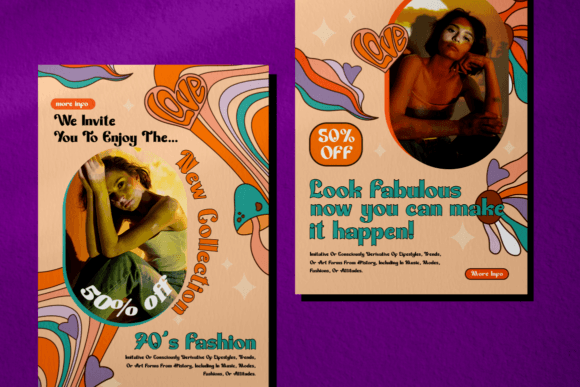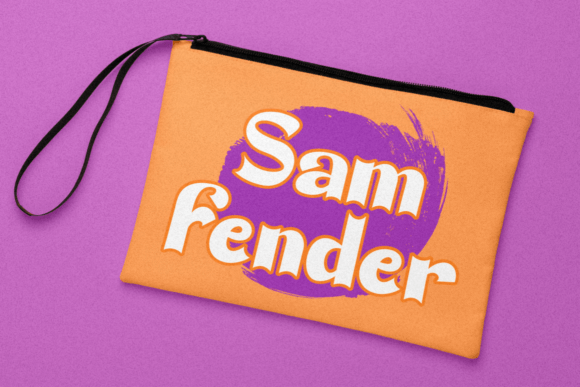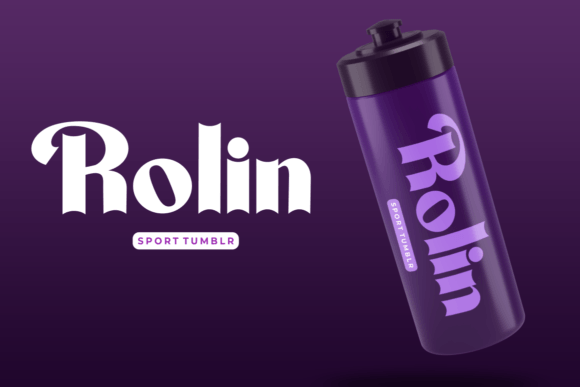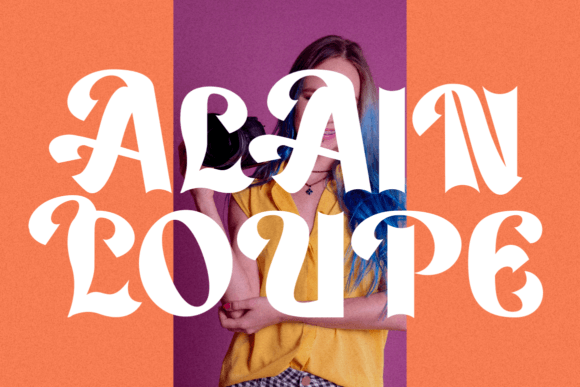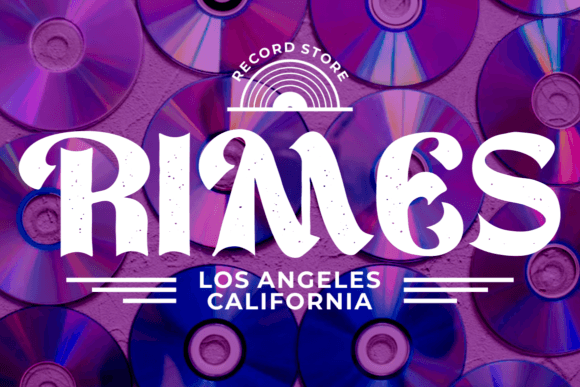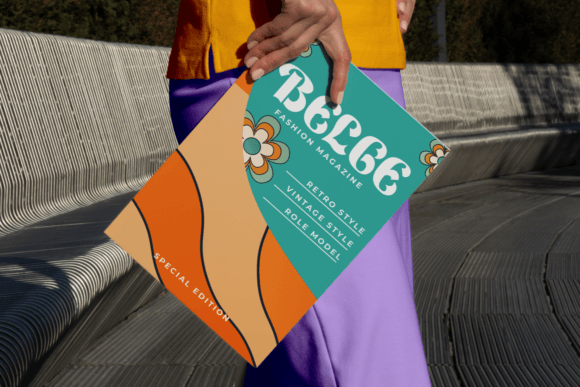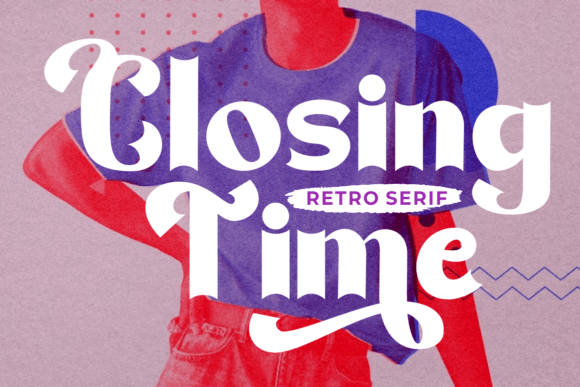
Discover the Timeless Charm of Closing Time Font: A Retro Display Font
Are you a designer or crafter looking for a font that can transport your designs to a bygone era? Look no further than Closing Time – Display Retro Font. This font is a perfect blend of retro and classic aesthetics, with its distinctive features and timeless appeal. In this article, we’ll explore the world of Closing Time Font and discover how it can elevate your designs to new heights.
The Essence of Retro and Classic Design
Closing Time – Display Retro Font takes you on a nostalgic journey to the charming days of classic design. With its slightly curved edges inward, this font boasts a perfect blend of retro and classic elements. The result is a unique and captivating aesthetic that’s sure to grab attention. Whether you’re designing a logo, invitation, or packaging, Closing Time Font is the ideal choice for adding a touch of nostalgia and timeless charm to your work.
Two Distinct Versions for Endless Possibilities
One of the standout features of Closing Time – Display Retro Font is that it offers two distinct versions: a clean variant for a polished look and a textured one for added character. The clean version is perfect for designs that require a crisp and modern aesthetic, while the textured version adds a touch of grit and authenticity. With these two options, you can experiment with different looks and find the one that best suits your design needs.
Add a Touch of Uniqueness with Alternative Characters
Closing Time – Display Retro Font also provides alternative characters to infuse a touch of uniqueness and creativity into your designs. These alternative characters allow you to experiment with different styles and add a personal touch to your work. Whether you’re designing a title, poster, or greeting card, the alternative characters in Closing Time Font give you the freedom to create something truly special.
So, what can you create with Closing Time – Display Retro Font? The possibilities are endless! This font is perfect for logos, invitations, packaging, posters, titles, businesses, greeting cards, magazines, and any design projects that seek to capture the essence of retro and classic themes. With Closing Time Font, you can add a touch of nostalgia and sophistication to your designs, making them stand out from the crowd.
Why Choose Closing Time Font?
So, why should you choose Closing Time – Display Retro Font for your design projects? Here are just a few reasons:
- Timeless appeal: Closing Time Font has a timeless charm that’s sure to captivate your audience.
- Retro and classic aesthetic: This font boasts a perfect blend of retro and classic elements, making it perfect for designs that require a nostalgic touch.
- Two distinct versions: With a clean and textured version, you can experiment with different looks and find the one that best suits your design needs.
- Alternative characters: The alternative characters in Closing Time Font give you the freedom to create unique and captivating designs.
- PUA encoded: With PUA encoding, you can access all of the amazing glyphs and ligatures with ease.
Closing Time – Display Retro Font is a powerful tool for designers and crafters looking to add a touch of nostalgia and timeless charm to their designs. With its distinctive features, timeless appeal, and endless possibilities, this font is perfect for a wide range of design projects. Whether you’re designing a logo, invitation, or packaging, Closing Time Font is the ideal choice for capturing the essence of retro and classic themes. So why wait? Embrace the nostalgia and timeless charm of Closing Time – Display Retro Font, and let your designs tell a story of a bygone era.